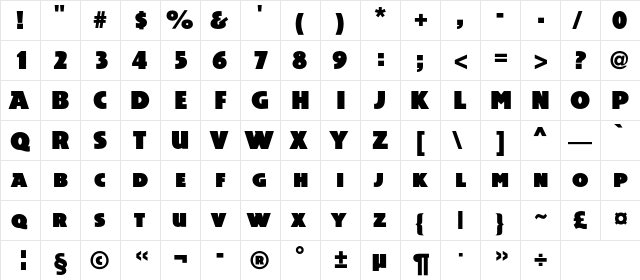
AcsiomaNextC Regular
Design Context for AcsiomaNextC Typeface
AcsiomaNextC offers clean, dependable letterforms without strong stylistic allegiance, making it a practical choice for designers who need flexibility.